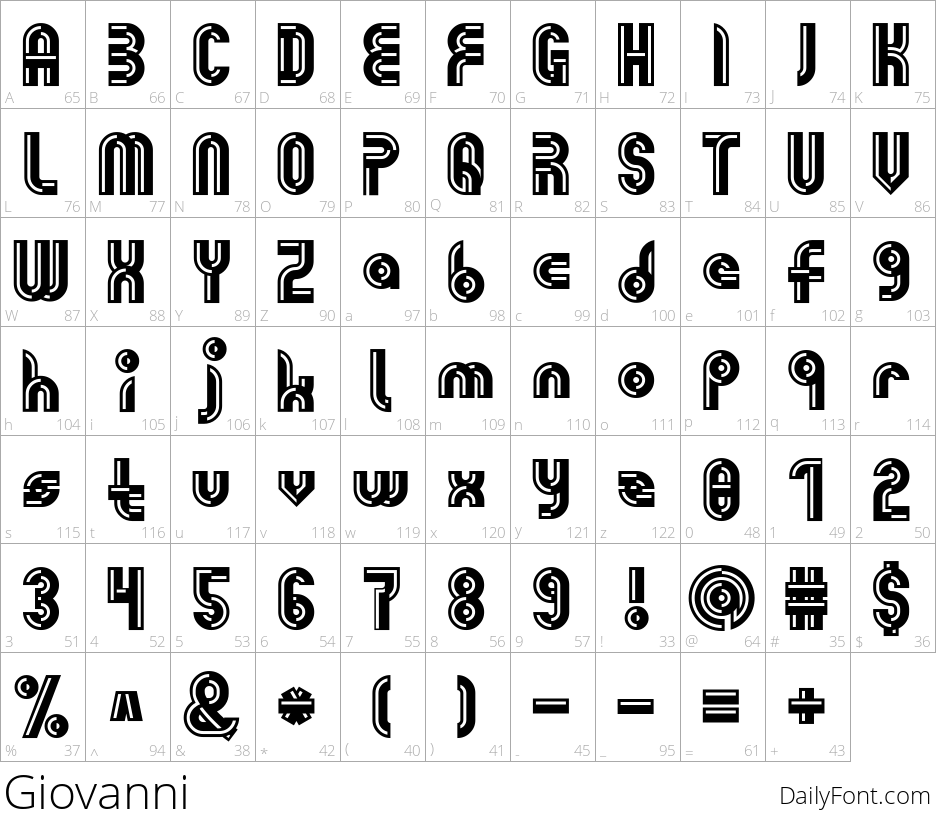
Giovanni by Thor Christopher Arisland
Giovanni is a captivating retro display font that exudes vintage charm. Its unique characteristics make it perfect for eye-catching headlines and creative designs.